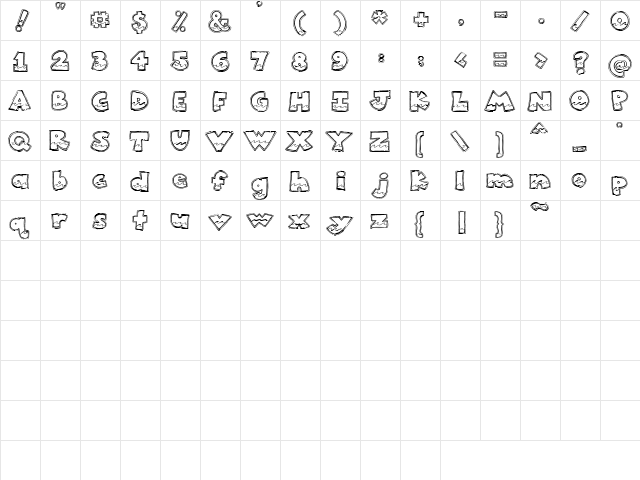
PC Wave Regular Font Preview
PC Wave Regular
PC Wave Regular Font Details
Design Context for PC Wave Typeface
PC Wave is a composed and adaptable typeface that performs quietly and consistently across a wide range of design contexts.